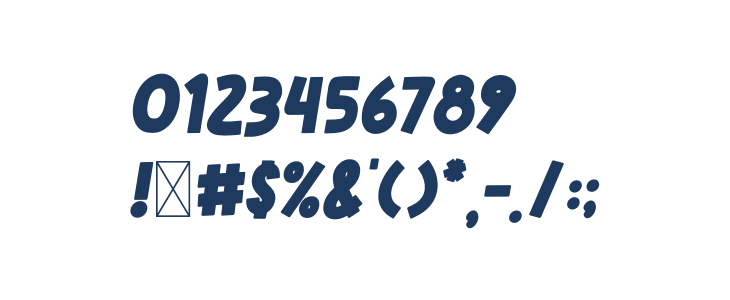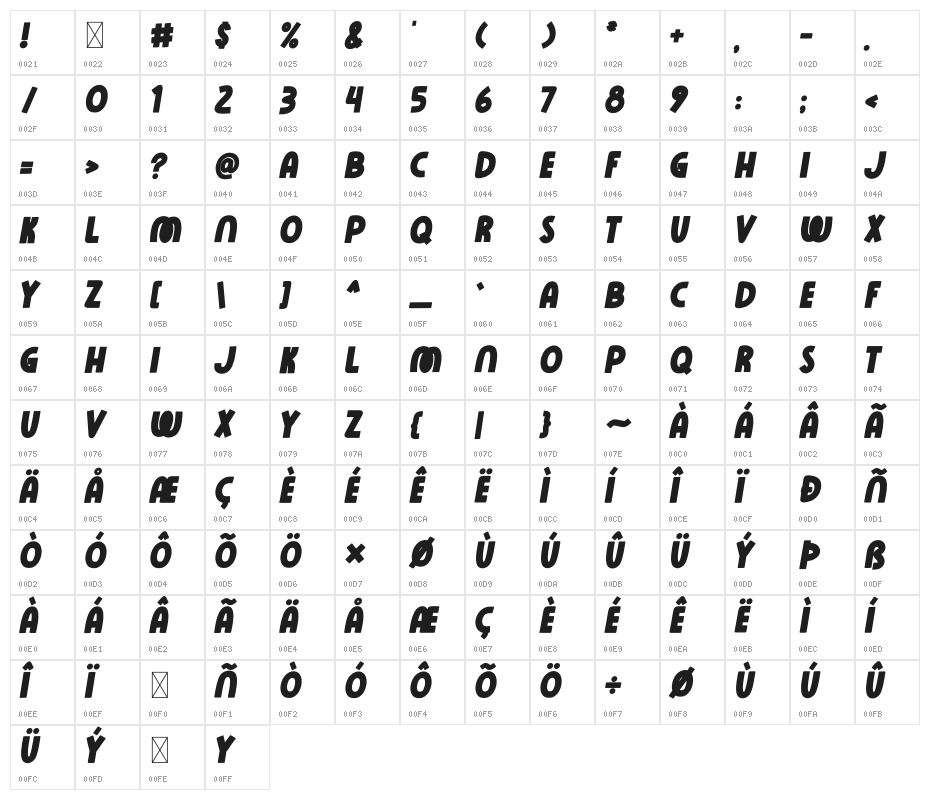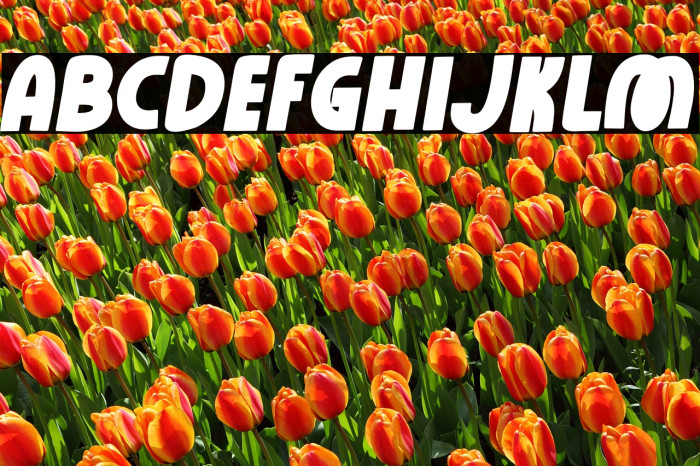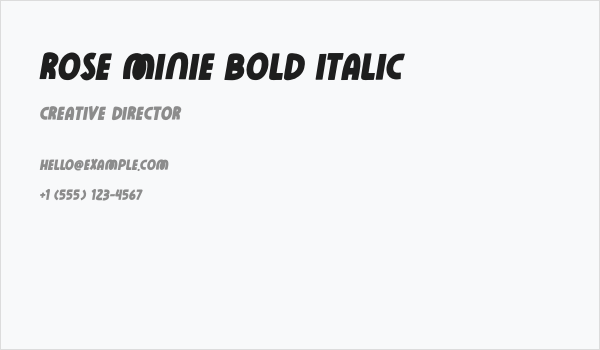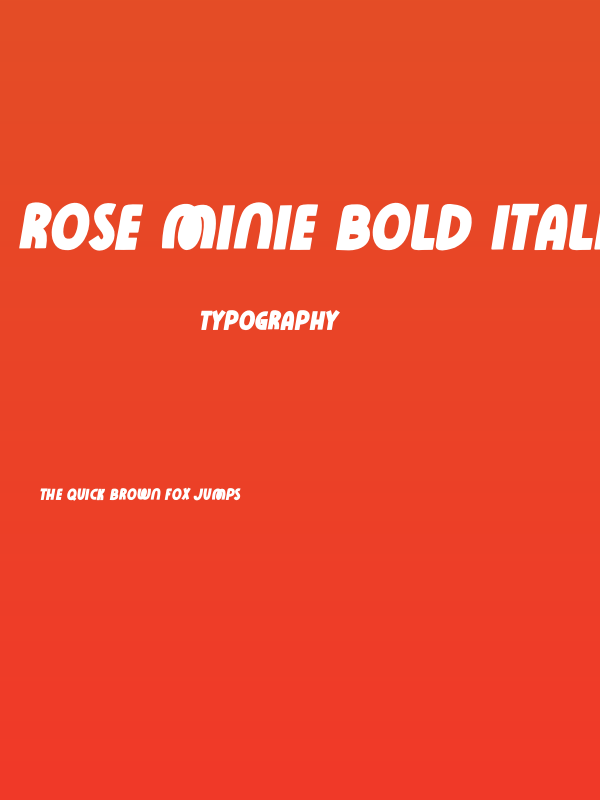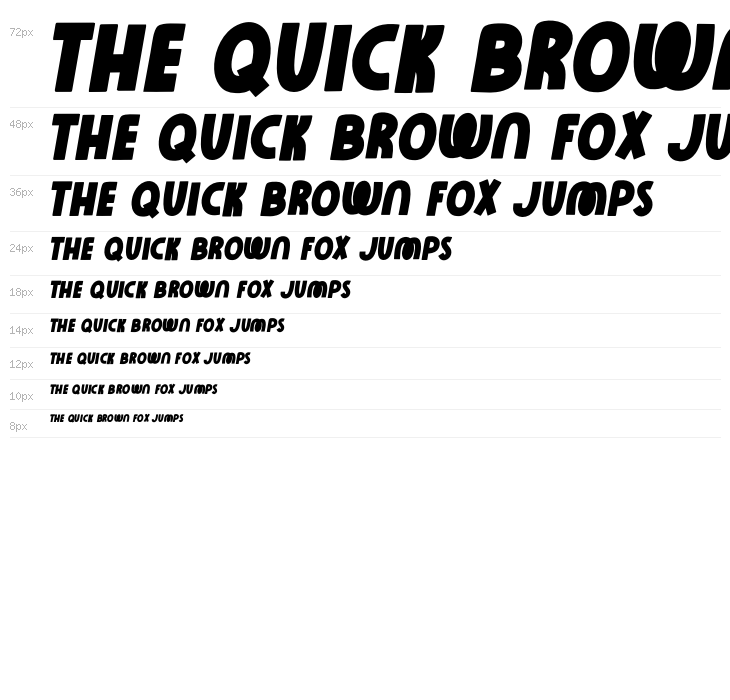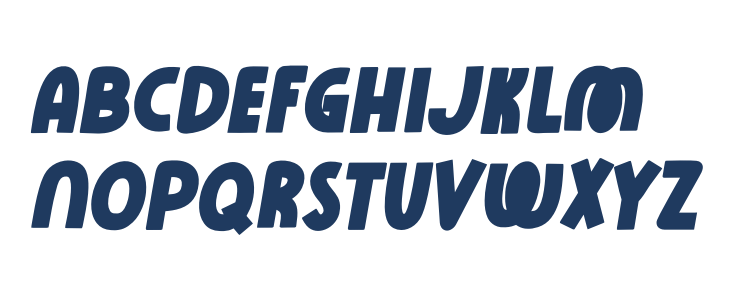
Rose Minie Bold Italic Font
Rose Minie Bold Italic Description
This font features a bold and italicized style with a distinctive, playful character. The letters are rounded and thick, giving them a strong presence on the page. The italic slant adds a dynamic and energetic feel, making it suitable for attention-grabbing designs. The numbers and special characters maintain the same boldness and curvature, ensuring consistency across all elements. This font is particularly eye-catching and can be used to convey a sense of fun and creativity.
| Overall Style | Playful, Energetic |
| Proposed Projects | Ideal for posters, branding, children's books, and playful graphic designs. |